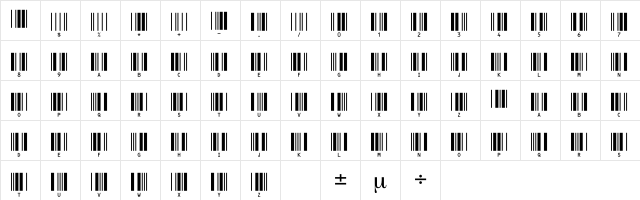
C39HrP24DlTt Normal Font Preview
C39HrP24DlTt Normal
C39HrP24DlTt Normal Font Details
Design Context for C39HrP24DlTt Typeface
C39HrP24DlTt takes a measured approach to typography — its balanced proportions and neutral character make it a reliable workhorse for both digital and print work.